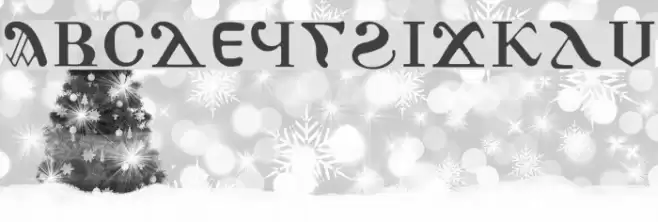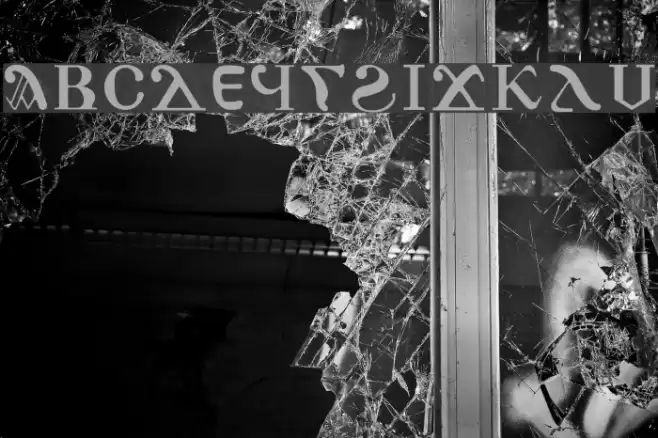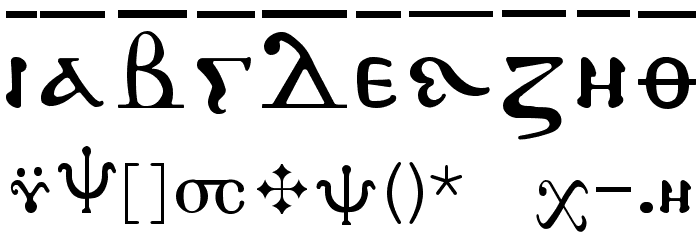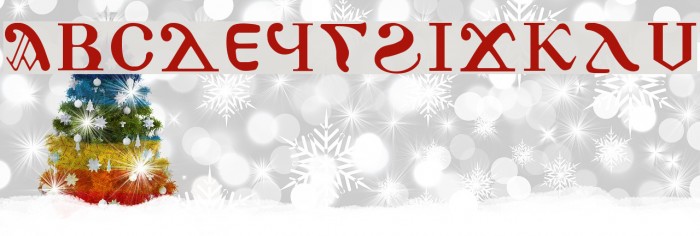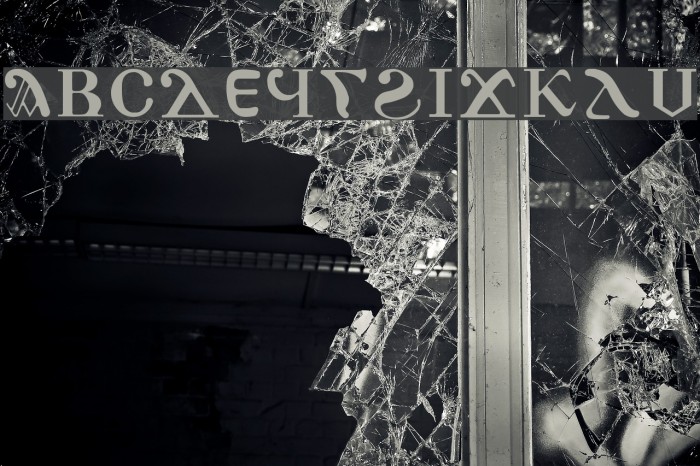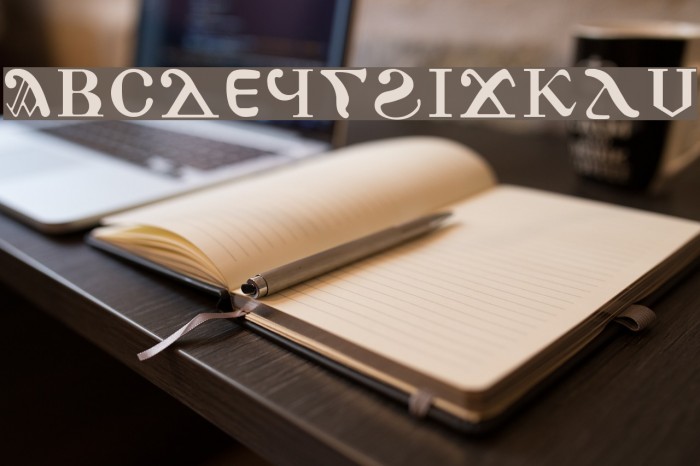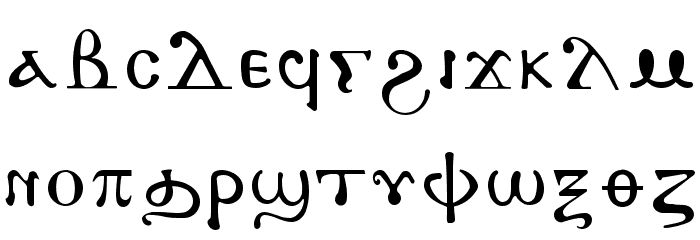
Antonious Normal Font
Antonious Normal Description
This font features a unique blend of traditional and modern elements, characterized by its distinct, ornamental serifs and varied stroke widths. The uppercase letters exhibit a bold presence with intricate curves and flourishes, while the lowercase letters maintain a more subtle elegance. The numerals and special characters are designed to complement the overall aesthetic, providing a cohesive look. The font's style is reminiscent of historical scripts, yet it maintains a contemporary feel, making it versatile for various design applications. Its artistic flair is evident in the playful yet sophisticated letterforms, which are both eye-catching and readable.
A decorative serif font with ornamental serifs and varied stroke widths from Uncategorized fonts.
- Proposed Projects: Ideal for branding, packaging, invitations, and editorial design where a touch of elegance and uniqueness is desired.
- Use Case: Logos, Headlines, Invitations